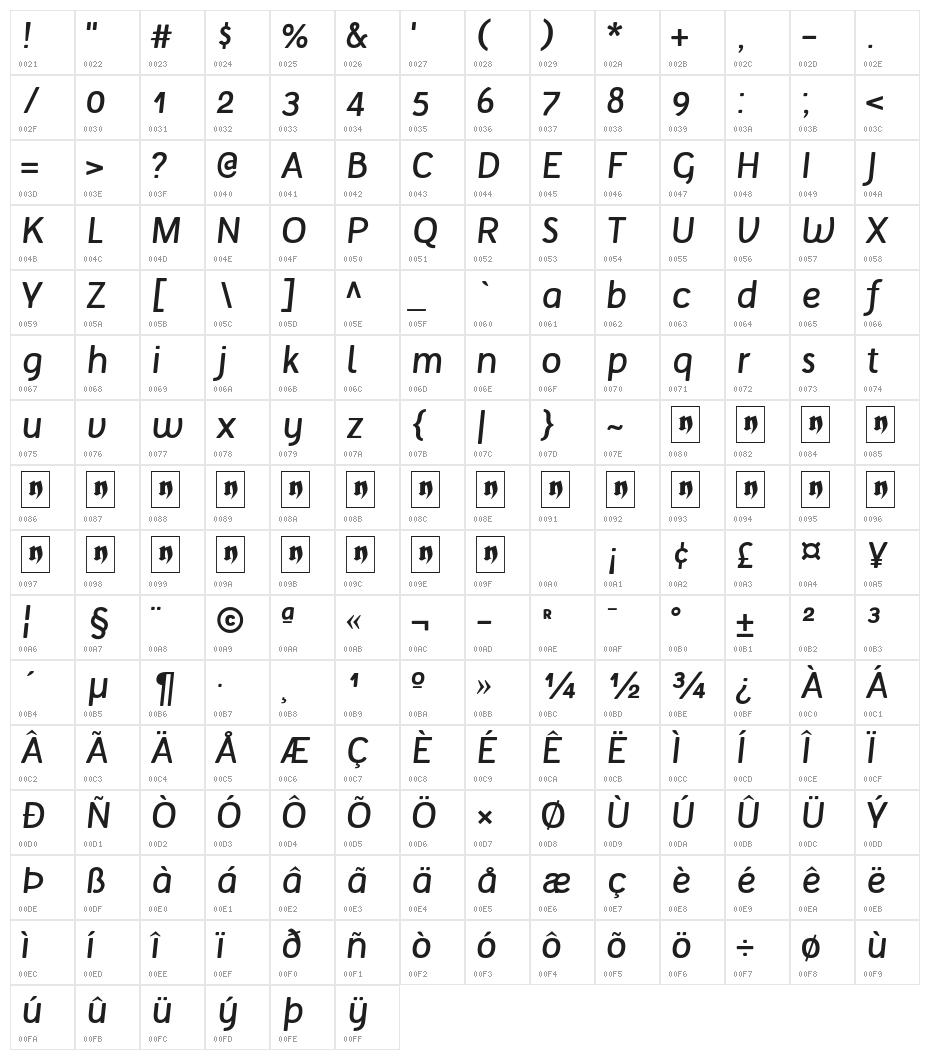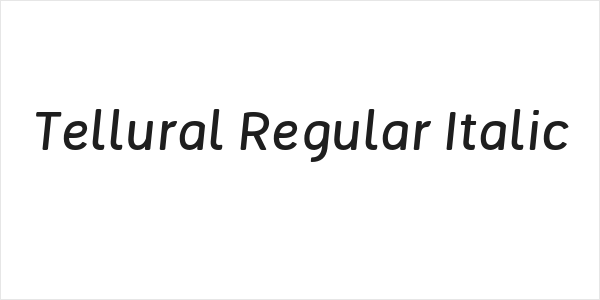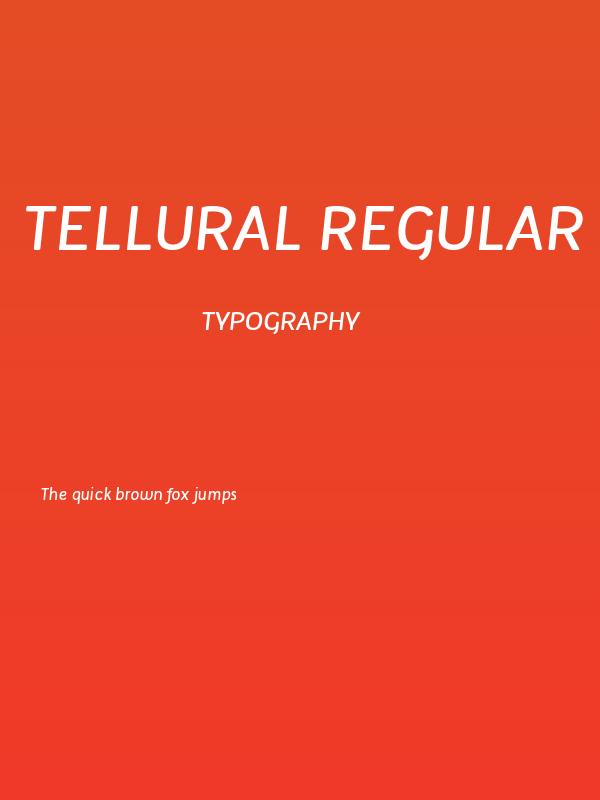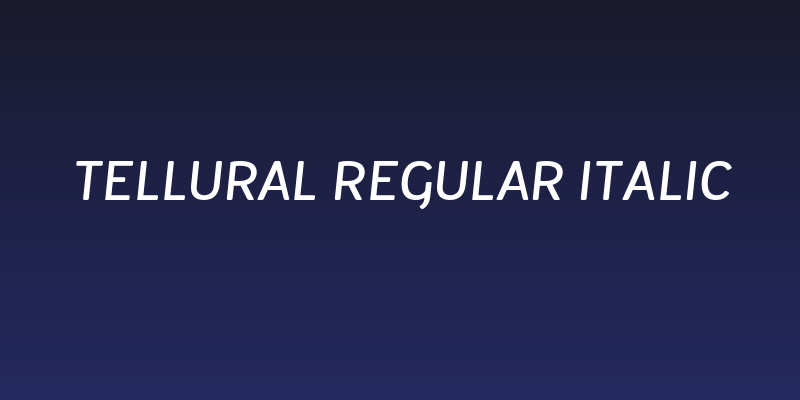
Tellural Regular Italic Font
Tellural Regular Italic Description
This typeface features a sleek and modern design with a slight italic slant, giving it a dynamic and forward-moving appearance. The characters are well-balanced with a consistent stroke width, providing a clean and professional look. The uppercase letters are bold and assertive, while the lowercase letters maintain a friendly and approachable style. The numerals are clear and easy to read, making them suitable for various applications. Special characters are included, ensuring versatility in usage. The overall design is contemporary and suitable for digital and print media.
| Proposed Projects | Ideal for branding, advertising, digital content, and editorial design. |